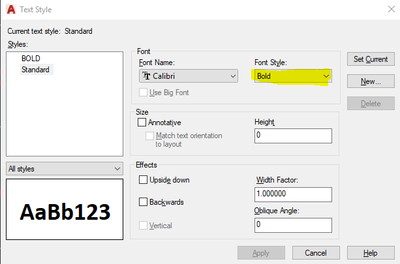
Calibri font prints too light
I use AutoCAD 2018 and have been struggling with an issue I have researched and cannot find the answer.
I used to have all my blocks use 'Romans SHX" font, but recently changed to Calibri, TTF.......because I read about all the benefits with TTF.
But when I print it to a printer, ( not a pdf ) the smaller Calibri text is way too light.
I understand about lineweights and pen sizes in the CTB, but I have changed nothing since I switched over from Romans to Calibri.
Romans seemed to print just fine.
When using TTF styles, do you need to increase the lineweight or do something to make it legible on hard copy prints?
If you print to a PDF does the text look correct? If so, what happens when you  print the PDF to your printer?
You have your text set to Bylayer on layer 0 with a layer color set to 7.  If you edit the Color 7 in the applied monochrome CTB file to use a heavier lineweight does that correct the problem?
Only SHX fonts will accept a lineweight as Truetype is basically an outline that is filled.  Here is an article that describes this behavior.
I printed to drawing to a pdf then printed to printer from there. It did not change the text.
I increased lineweight on color 7 in the CTB, and that only increased lineweight on dimensions, lines, graphics but the text remained the same.
Did the PDF look correct though? Perhaps you need to check if there are fonts installed on your printer that get used instead of the ones form the print file.  I would suggest trying to print to a different printer as well for comparison.
I think the text is still too light in the PDF attached. The bigger text looks fine, its just the smaller text (like the ones inside the boxes and circles).
In the mean time, try changing your Style to use the Bold style of the font to see if that gives you better results.
Wow! The bold worked great!
I didn't see any information in the product manuals that told me about any font handling.  I would suggest that if the  Bold works for you then stick with it. I assume it looks OK in the PDF and in printer output.